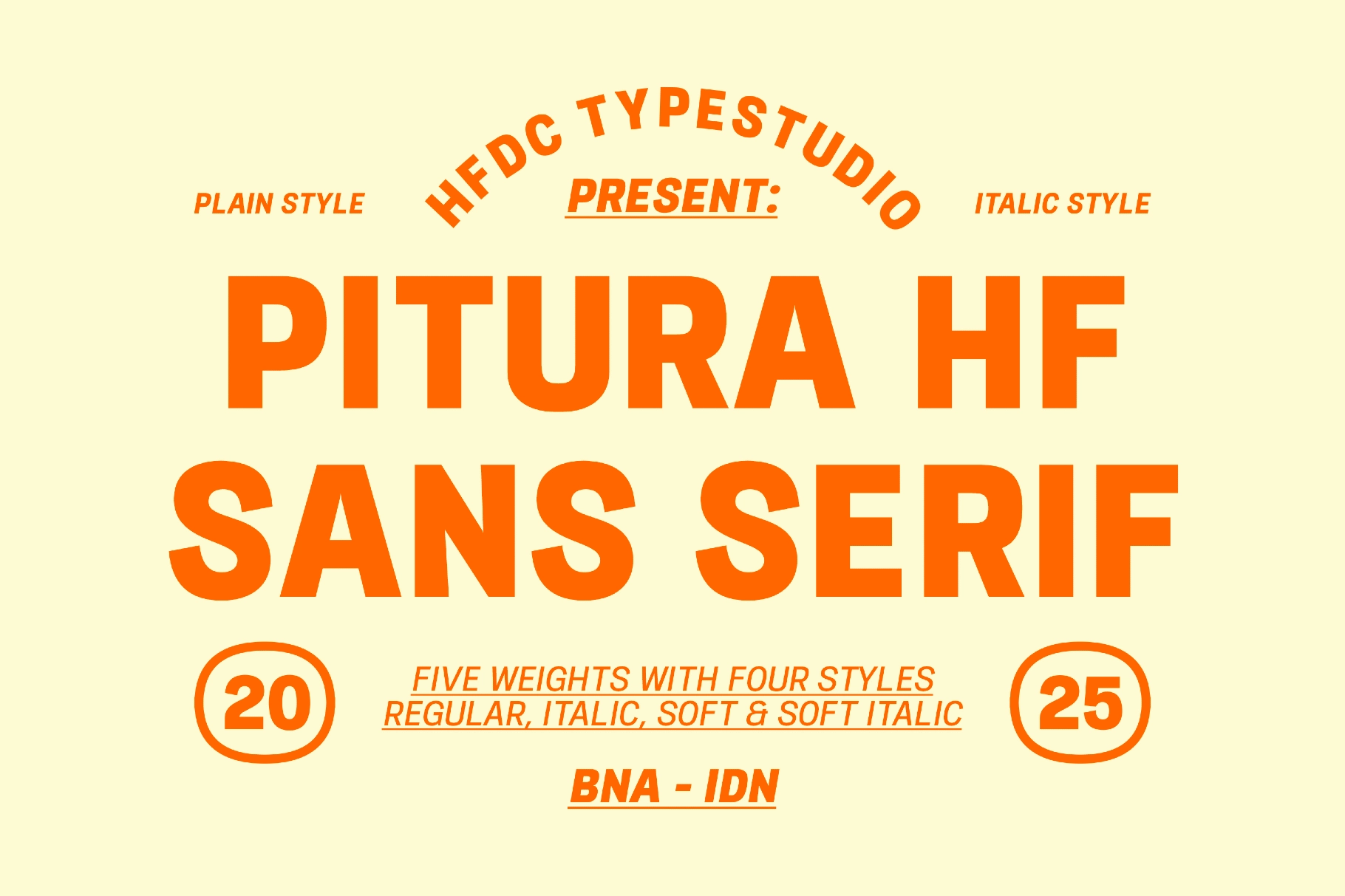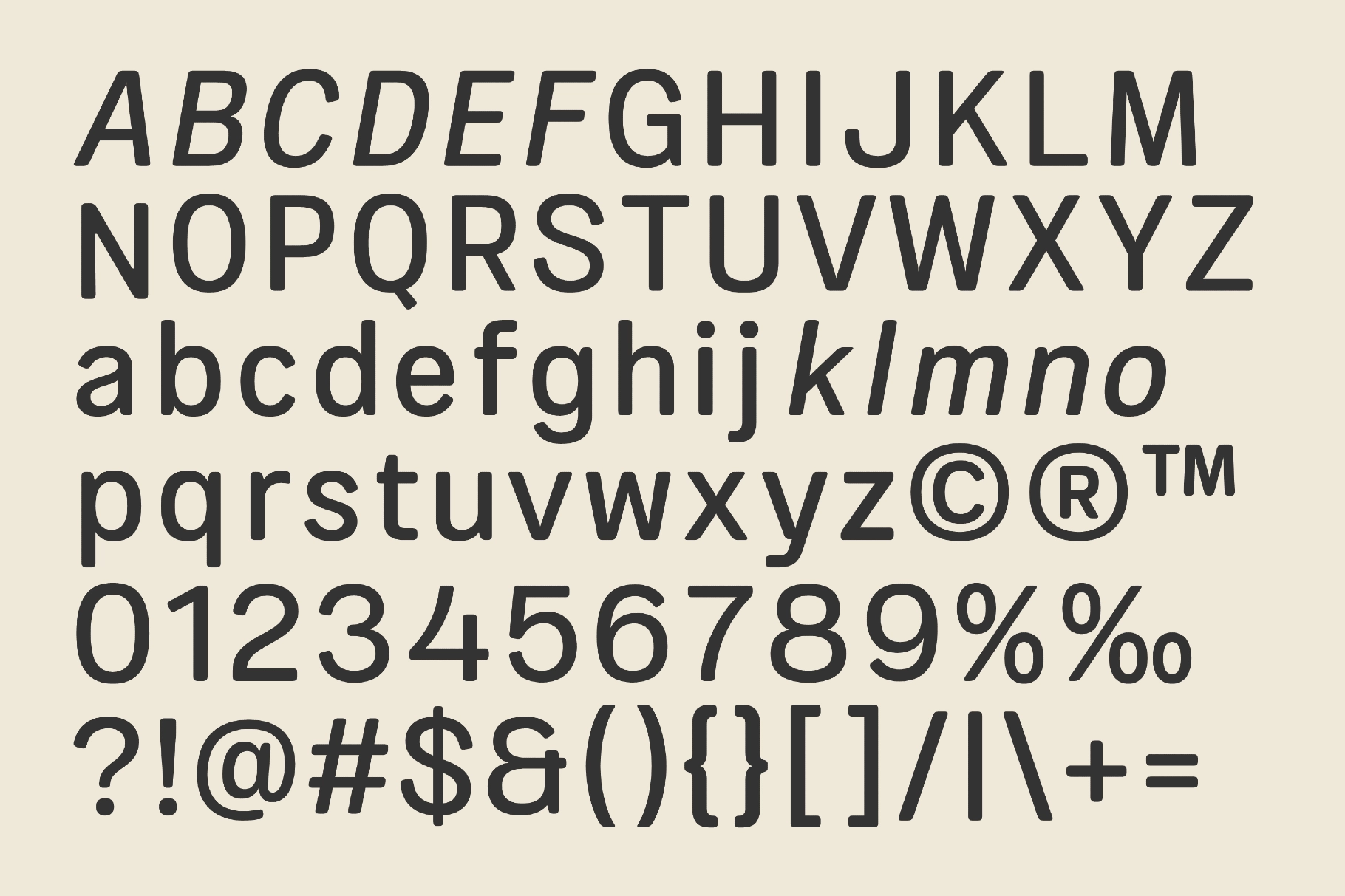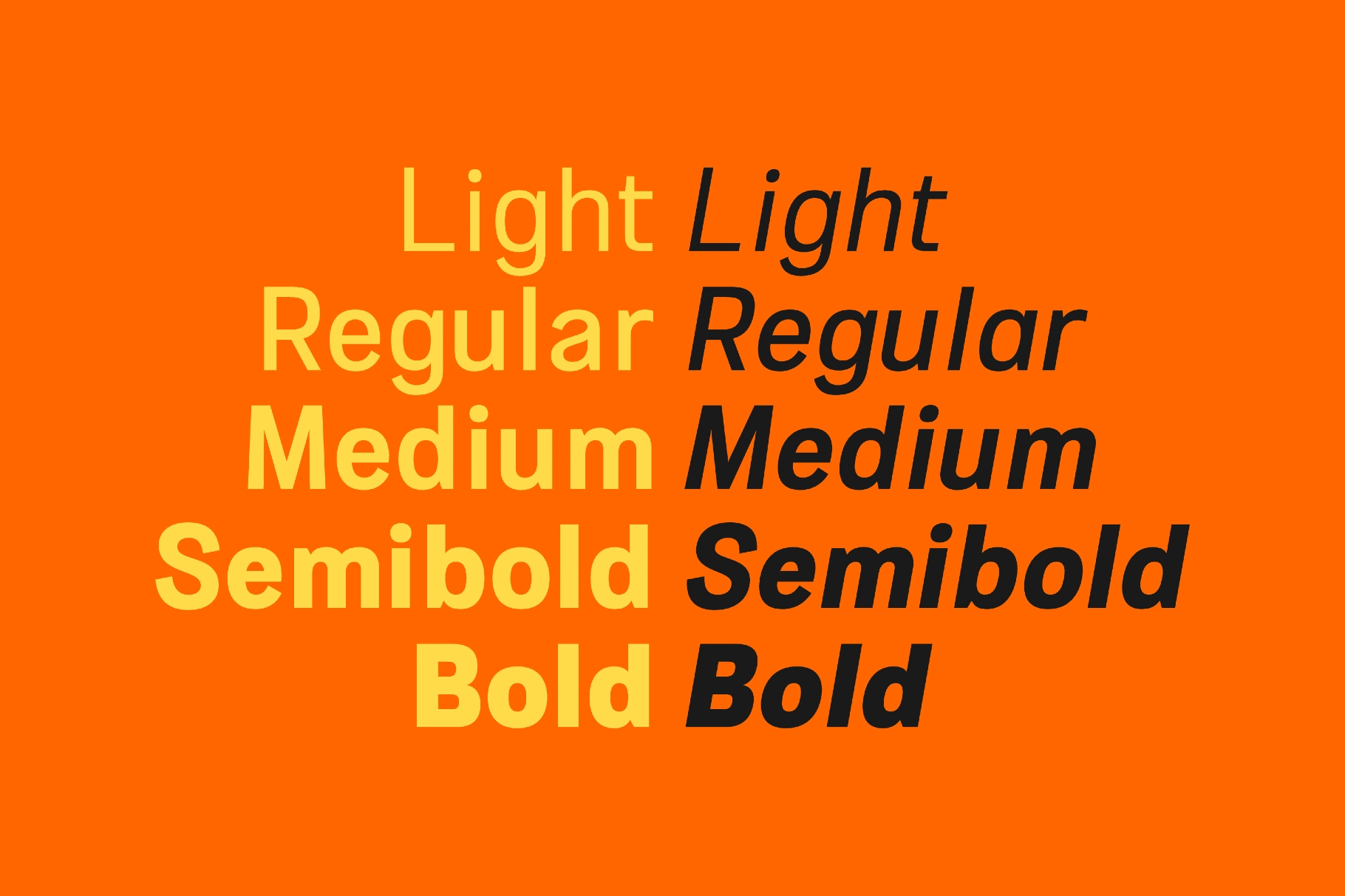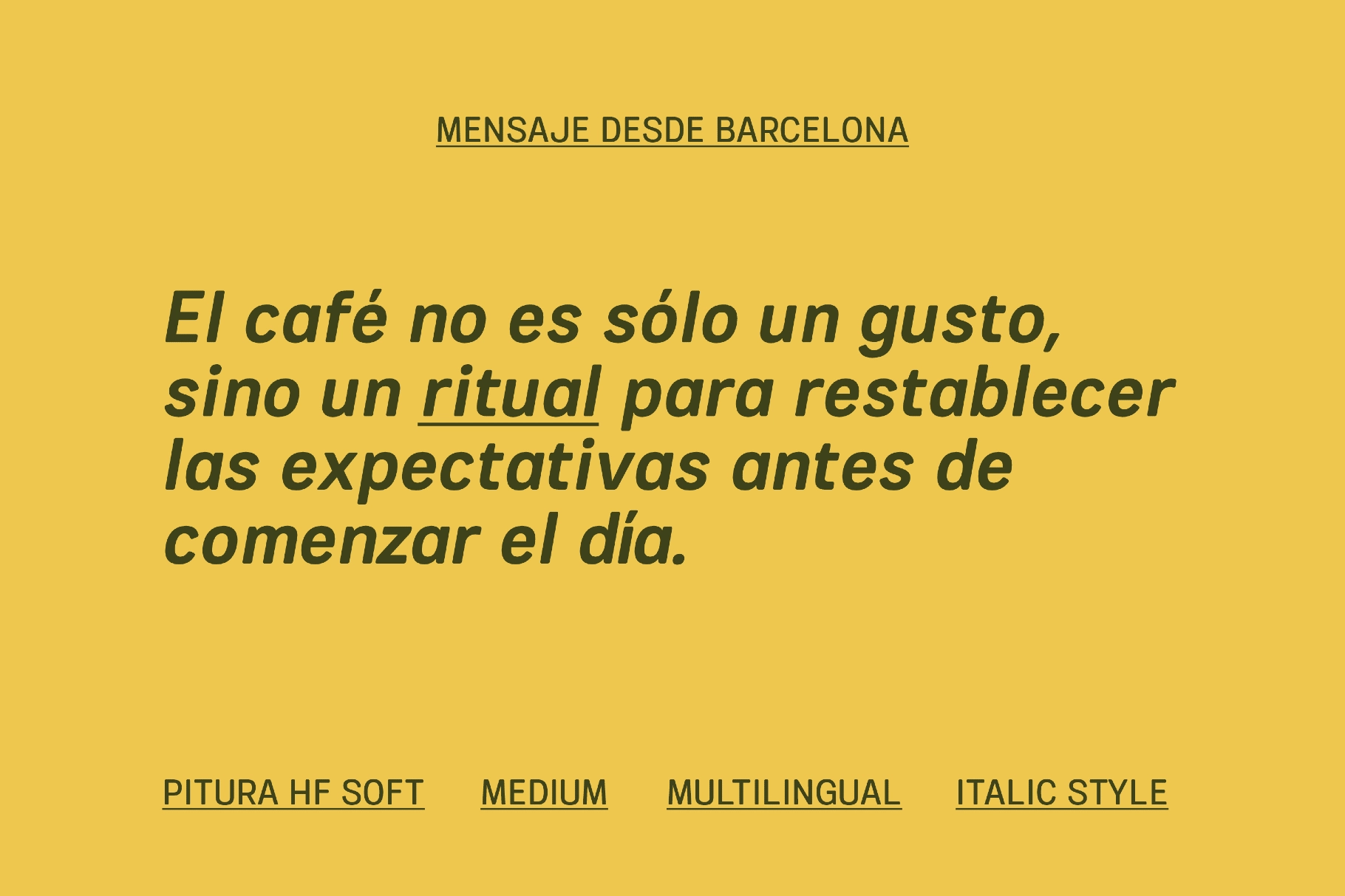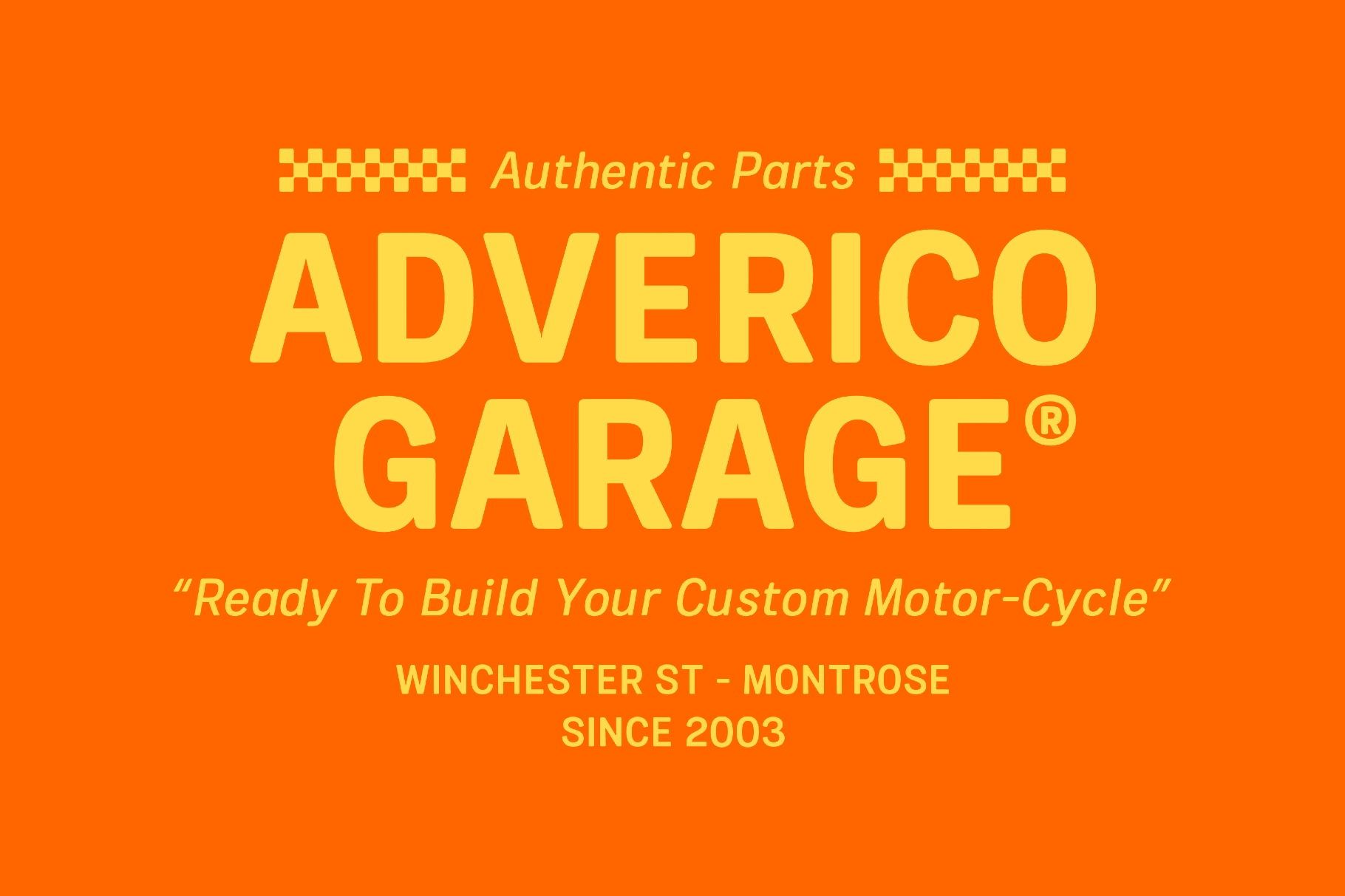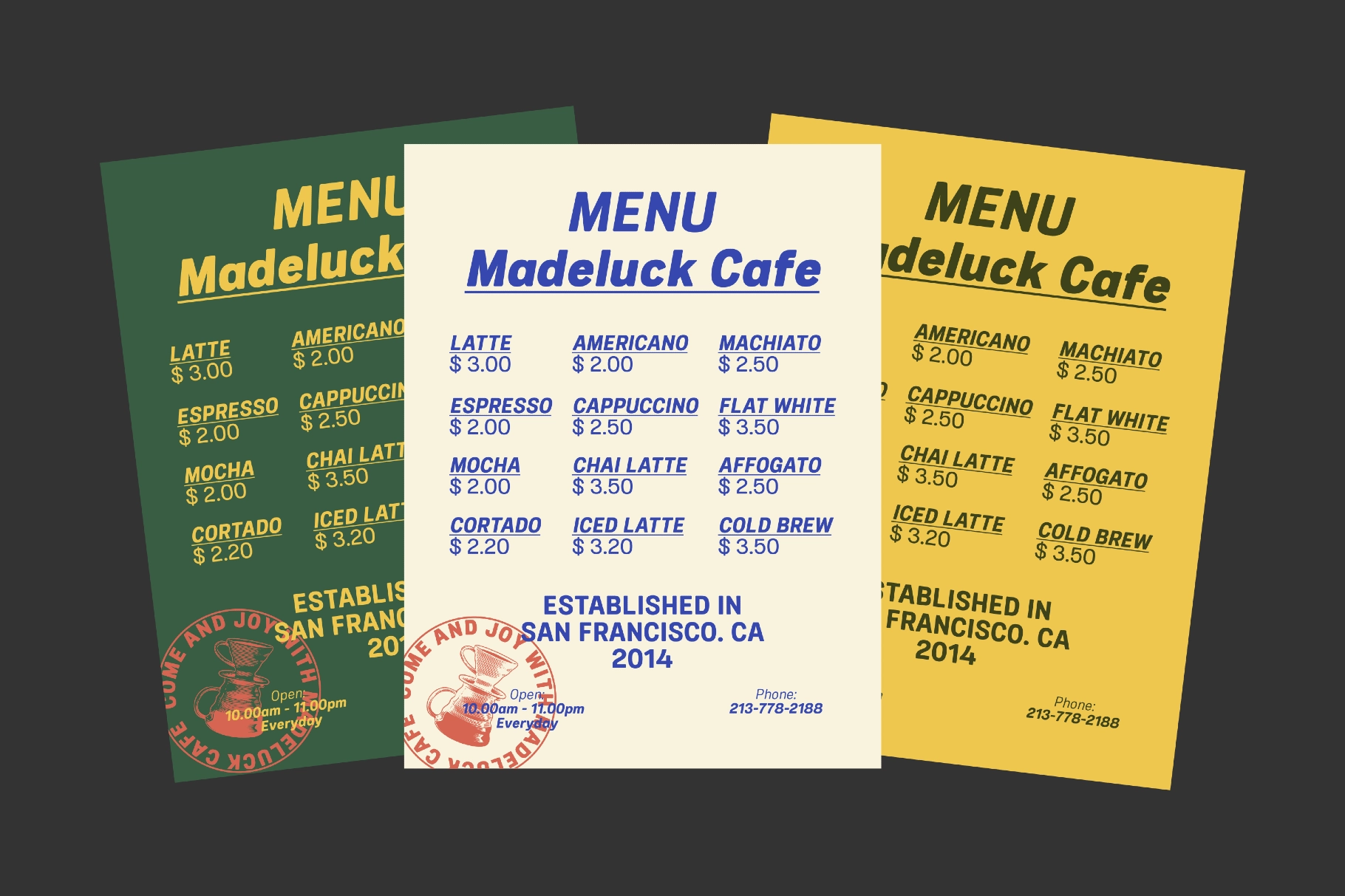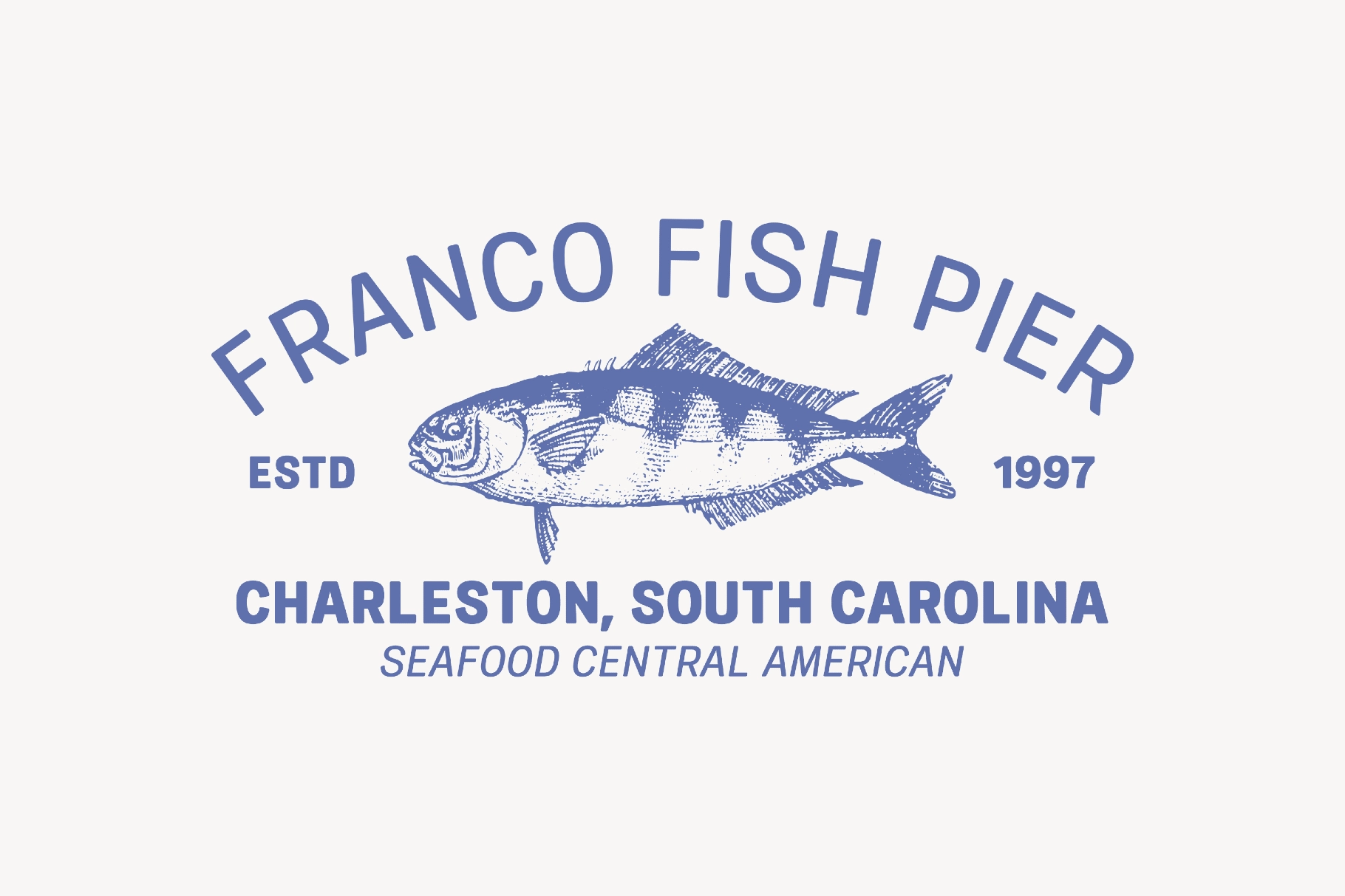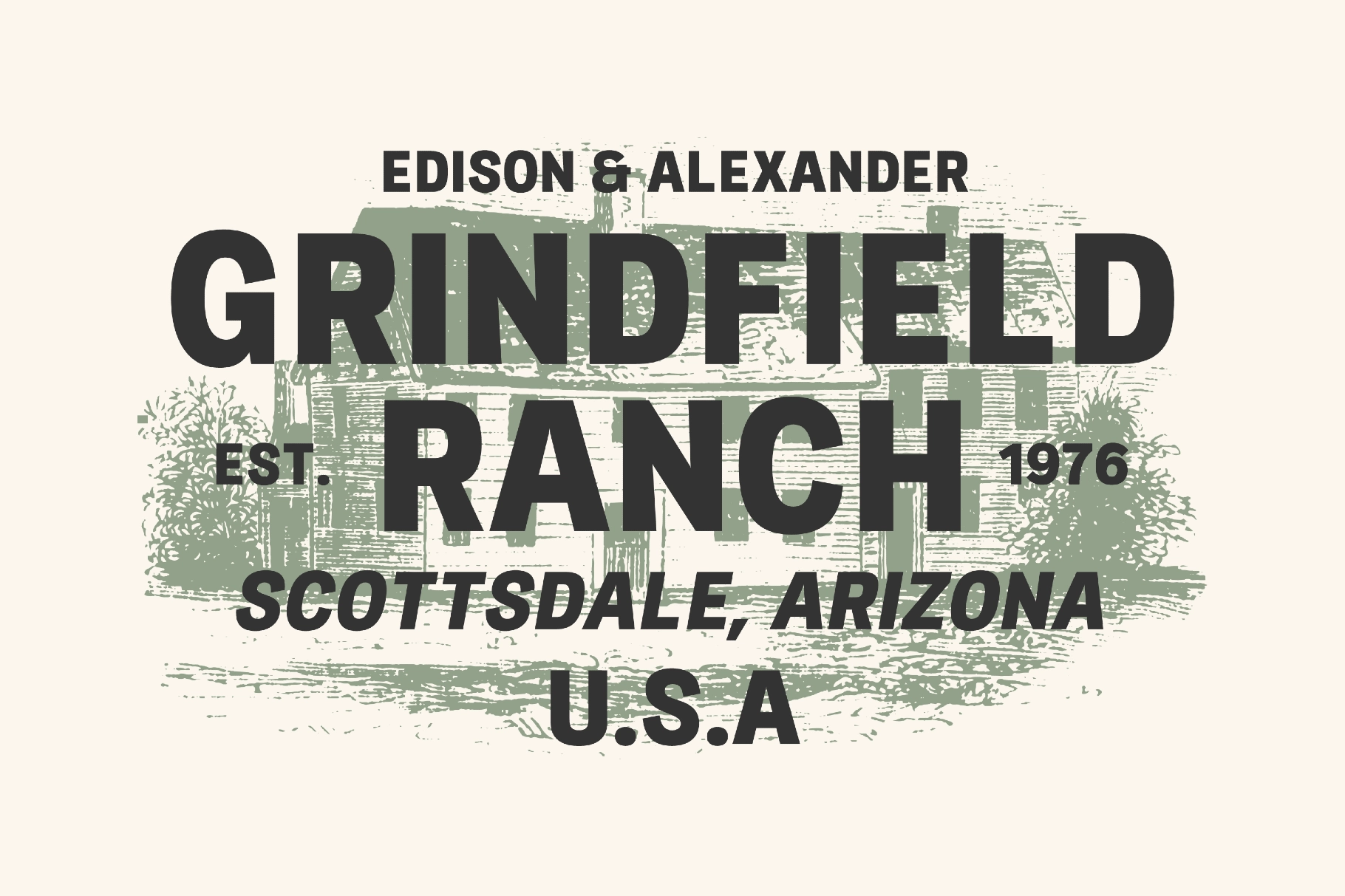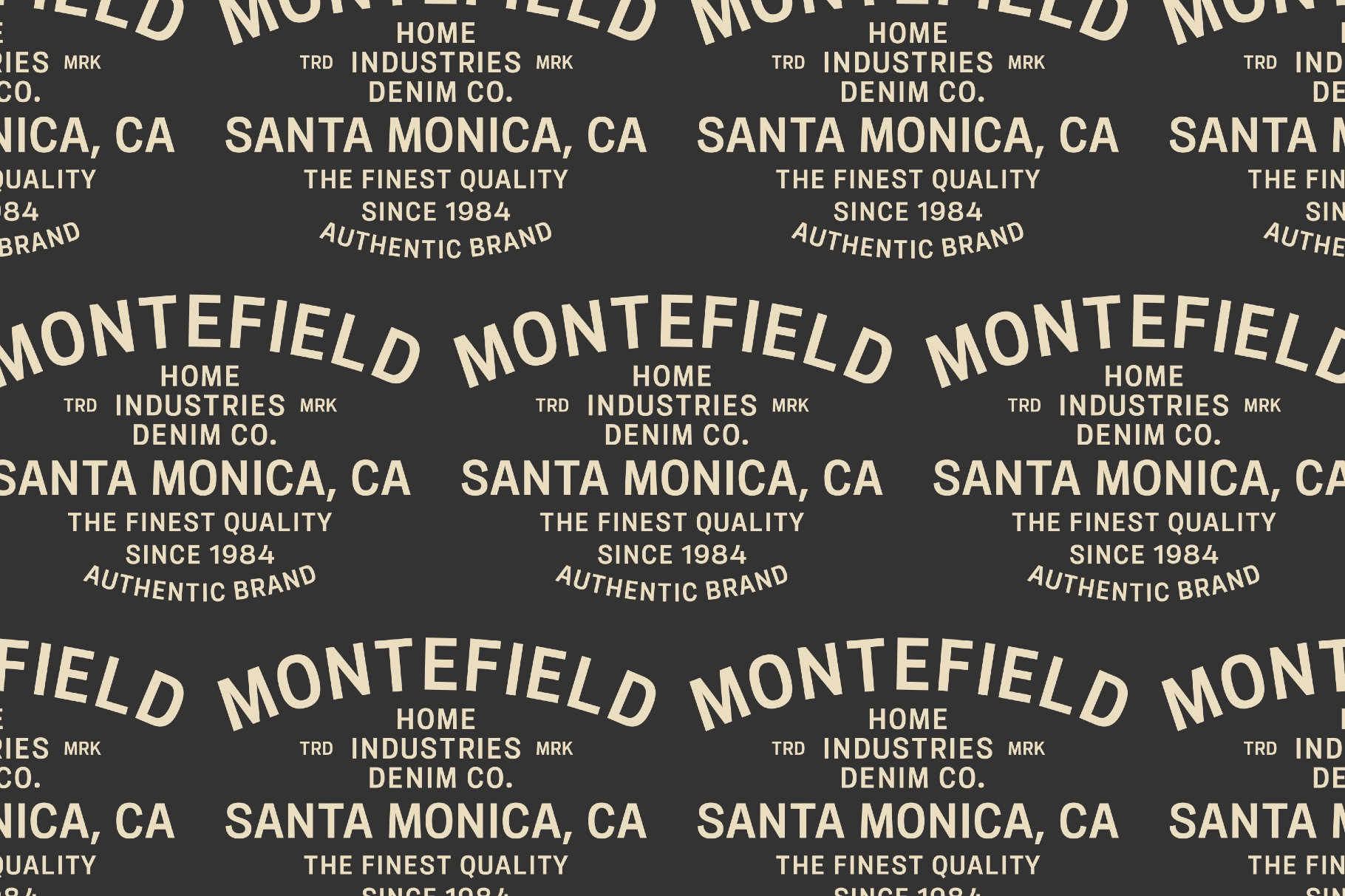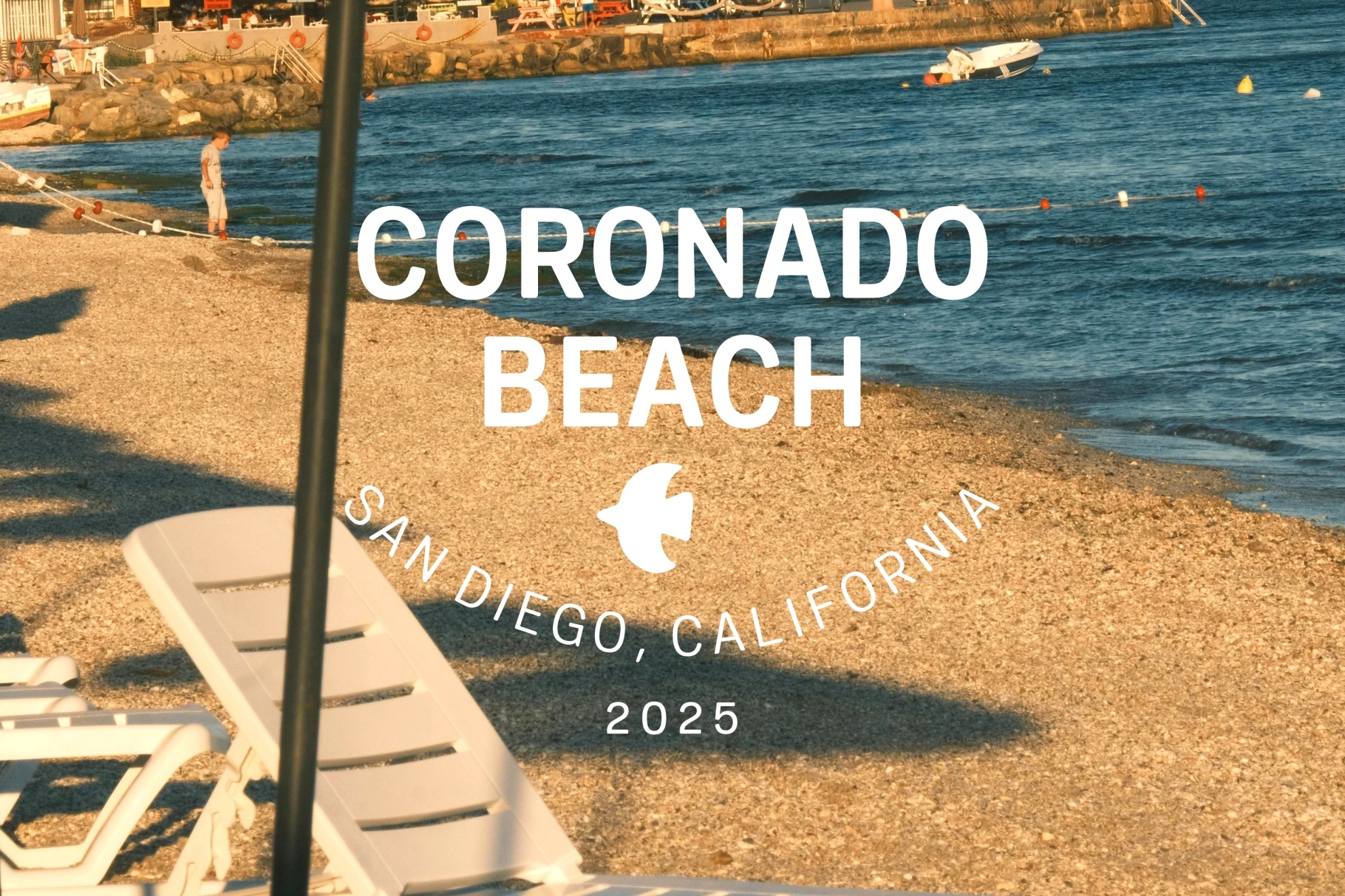
Pitura HF - Modern Sans Serif Font Family
Pitura HF - Modern Sans Serif Font Family is a clean and versatile type system designed for modern visual communication. Built with precision and clarity, it combines geometric structure with subtle humanist touches, making it suitable for both digital and print environments.
This family includes a wide range of weights and styles, allowing you to create consistent and flexible typography across branding, UI/UX, editorial layouts, and more. The Soft version introduces rounded terminals that add warmth and friendliness, making it especially effective for approachable, contemporary designs.
• 20 fonts included (10 Plain & 10 Soft)
• 5 weights: Light, Regular, Medium, Semibold, Bold
• Styles: Regular, Italic, Soft, Soft Italic
• Soft version with rounded edges
• Uppercase & lowercase characters
• Numerals & punctuation